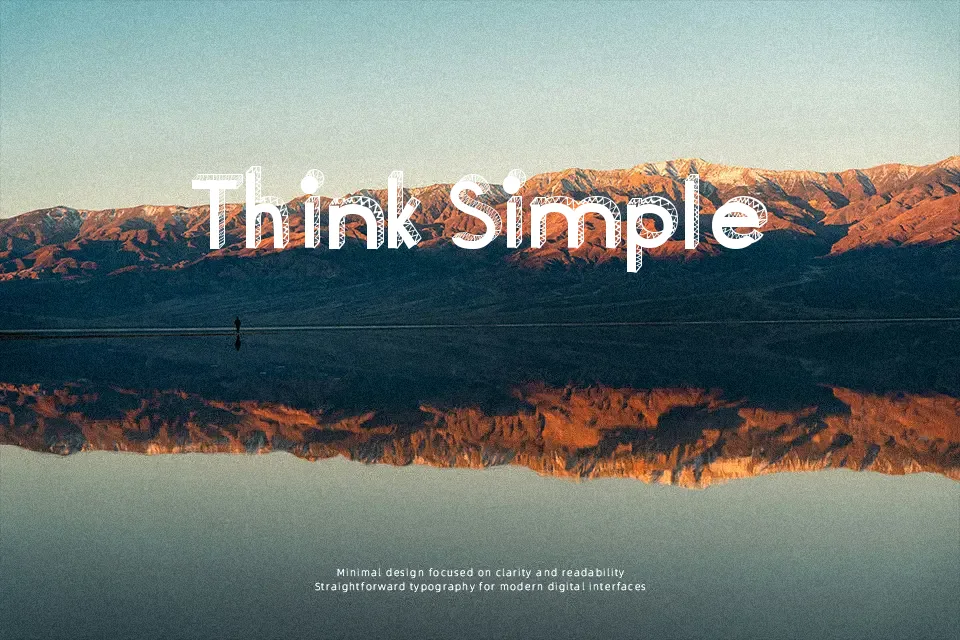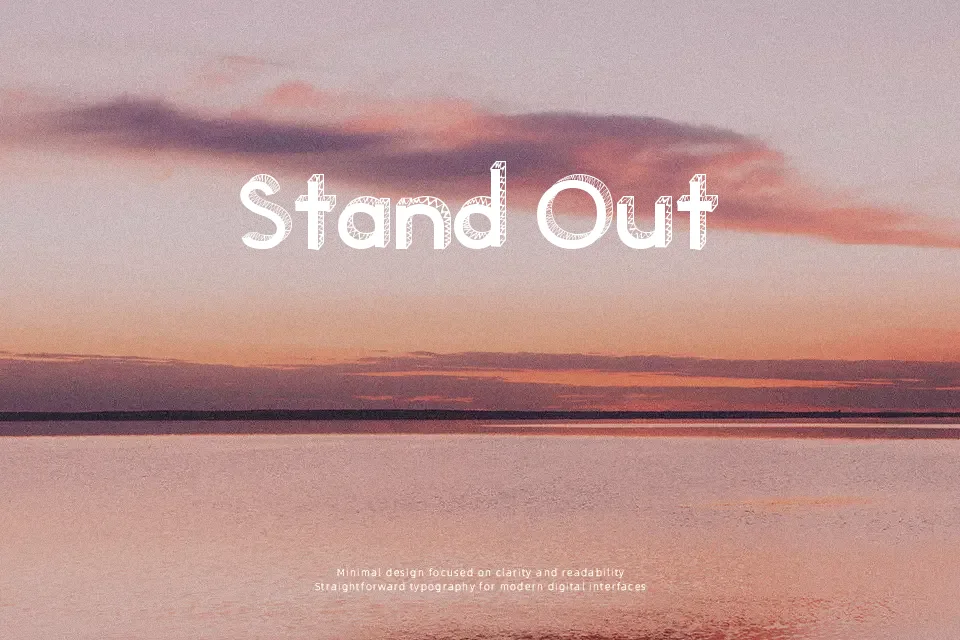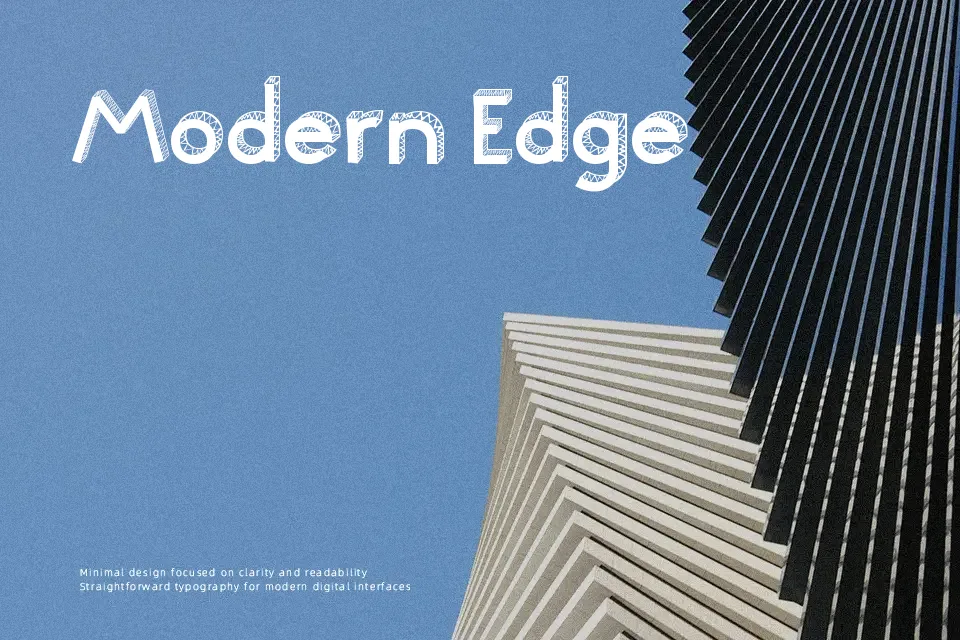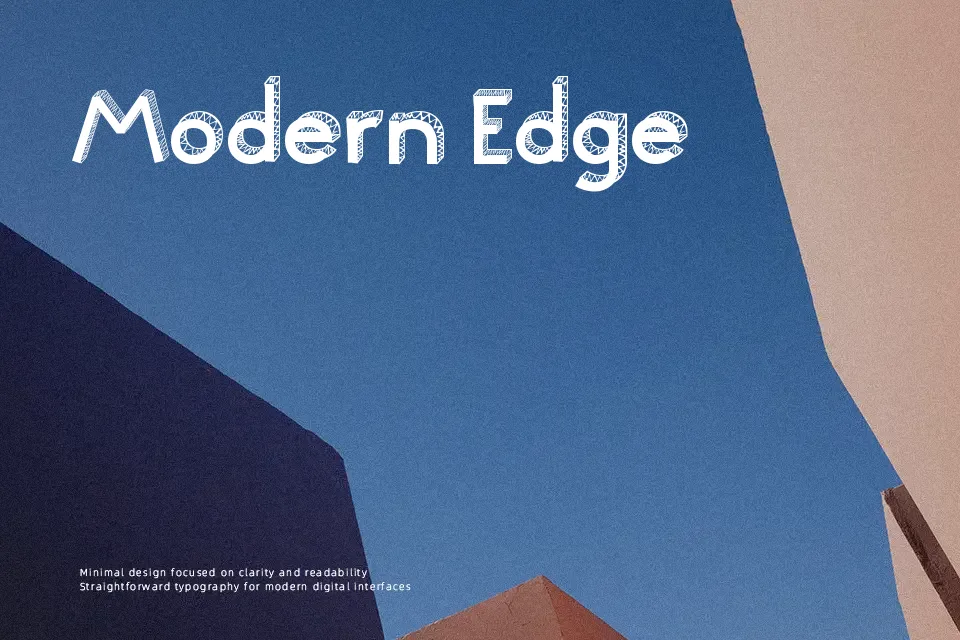
Teen Font
Designed by Adriana Camacho
Teen Font establishes immediate visual prominence through its bold, three-dimensional geometric construction and pronounced drop-shadow extrusion. Uniform stroke thickness pairs with tight proportional spacing to give uppercase characters an energetic, block-like rhythm suitable for prominent poster titles and graphic packaging. While the structural weight ensures crisp legibility at substantial display scales, the dense shaded anatomy creates visual clutter when scaled down to smaller reading sizes. This heavy dimensional styling works effectively for punchy signage and creative apparel prints, yet the design is noticeably less effective for extended paragraphs or compact interface labels where simple letterforms are essential.
Best For: music festival posters,apparel graphic prints,event display banners,youth branding headers
Perfect for 3d, branding, and headline, with a bold and decorative style.